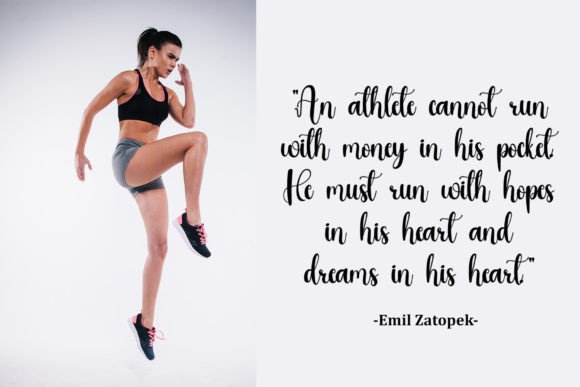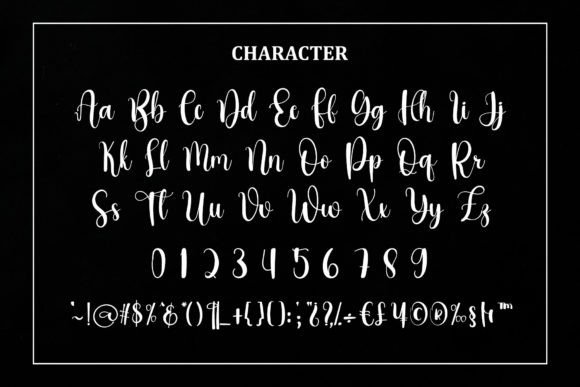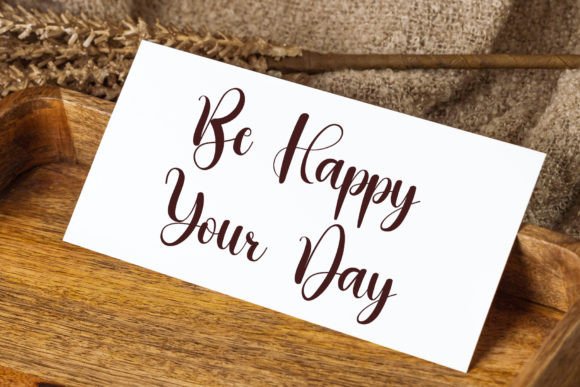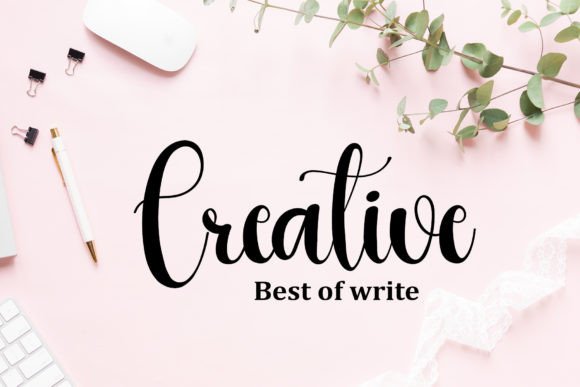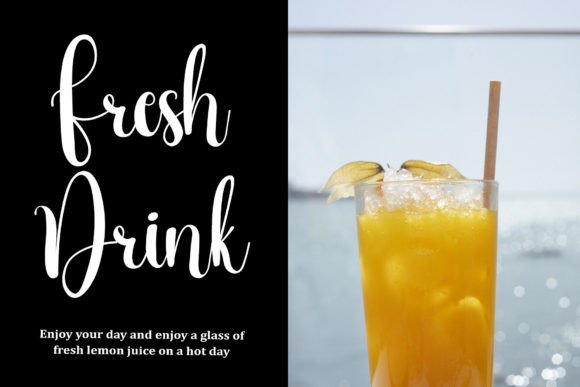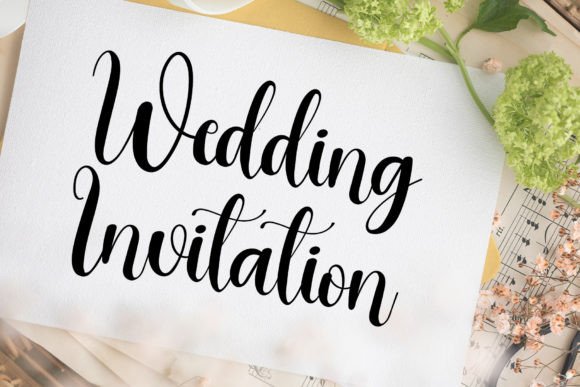
Better Holidays Font: Elevate Your Designs with Elegance
Are you on the hunt for a font that adds a touch of sophistication and charm to your projects? Look no further than the Better Holidays Font, a stunning handwritten font that embodies elegance and refinement. With its unique and timeless style, this font is sure to capture the hearts of designers and crafters alike.
The Beauty of Better Holidays Font
Better Holidays Font is a meticulously crafted handwritten font that boasts an incredibly distinct and beautiful style. Its elegant touch makes it perfect for a wide range of projects, from wedding invitations and greeting cards to branding and advertising materials. The font’s unique character is sure to leave a lasting impression on your audience, setting your designs apart from the rest.
Key Features of Better Holidays Font
- Handwritten with love: Better Holidays Font is a genuine handwritten font, infused with a personal touch that makes it feel warm and inviting.
- Elegant and refined: The font’s elegant style makes it perfect for projects that require a touch of sophistication and luxury.
- Unique and timeless: Better Holidays Font has a distinct character that will make your designs stand out, with a timeless quality that ensures your projects remain relevant for years to come.
- Versatile: This font is suitable for a wide range of projects, from digital designs to print materials.
Why Choose Better Holidays Font?
With so many fonts available, why choose Better Holidays Font? Here are just a few reasons why designers and crafters are falling in love with this beautiful font:
- Easy to read: Despite its elegant style, Better Holidays Font is incredibly easy to read, making it perfect for body text and headlines.
- Highly versatile: Use Better Holidays Font for a wide range of projects, from formal events to casual designs.
- Unique character: This font has a distinct personality that will help your designs stand out from the crowd.
- Constantly improved: The creators of Better Holidays Font are committed to continually improving and updating the font to ensure it meets the needs of designers and crafters.
Tips and Tricks for Using Better Holidays Font
To get the most out of Better Holidays Font, here are a few tips and tricks to keep in mind:
- Experiment with sizes: Better Holidays Font looks great in a wide range of sizes, from large headlines to smaller body text.
- Play with colors: This font looks stunning in a variety of colors, from rich jewel tones to soft pastels.
- Add effects and textures: Consider adding effects like glitter, foil, or texture to give your designs an extra-special touch.
Better Holidays Font is a beautiful and elegant handwritten font that’s perfect for designers and crafters looking to add a touch of sophistication to their projects. With its unique and timeless style, this font is sure to capture the hearts of audiences everywhere. Whether you’re working on a wedding invitation, a branding project, or simply a fun DIY craft, Better Holidays Font is the perfect choice.